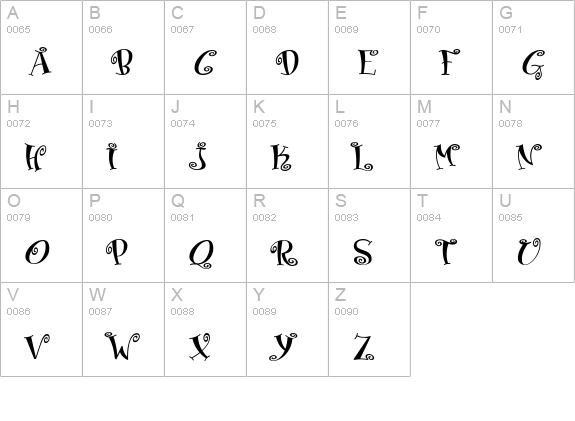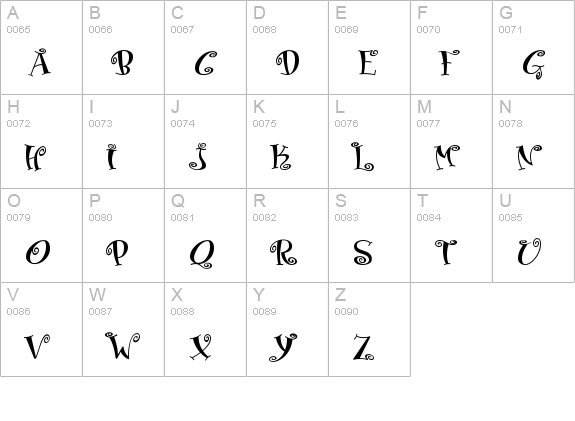
Matreshka font exudes a charming and whimsical aesthetic, perfect for adding a touch of playfulness to any design project. With its bold and rounded letterforms, Matreshka font strikes the ideal balance between modernity and nostalgia, making it a versatile choice for a wide range of creative applications. This delightful typeface is sure to captivate audiences with its unique personality and artistic flair. Best of all, Matreshka font is available for free download at FontsMarket.com. This means that you can easily access this captivating font and incorporate it into your projects without any cost. Whether you're designing a poster, creating a logo, or crafting social media graphics, Matreshka font offers endless possibilities for unleashing your creativity. Embrace the beauty and charm of Matreshka font today and watch your designs come to life with its distinct character and style.